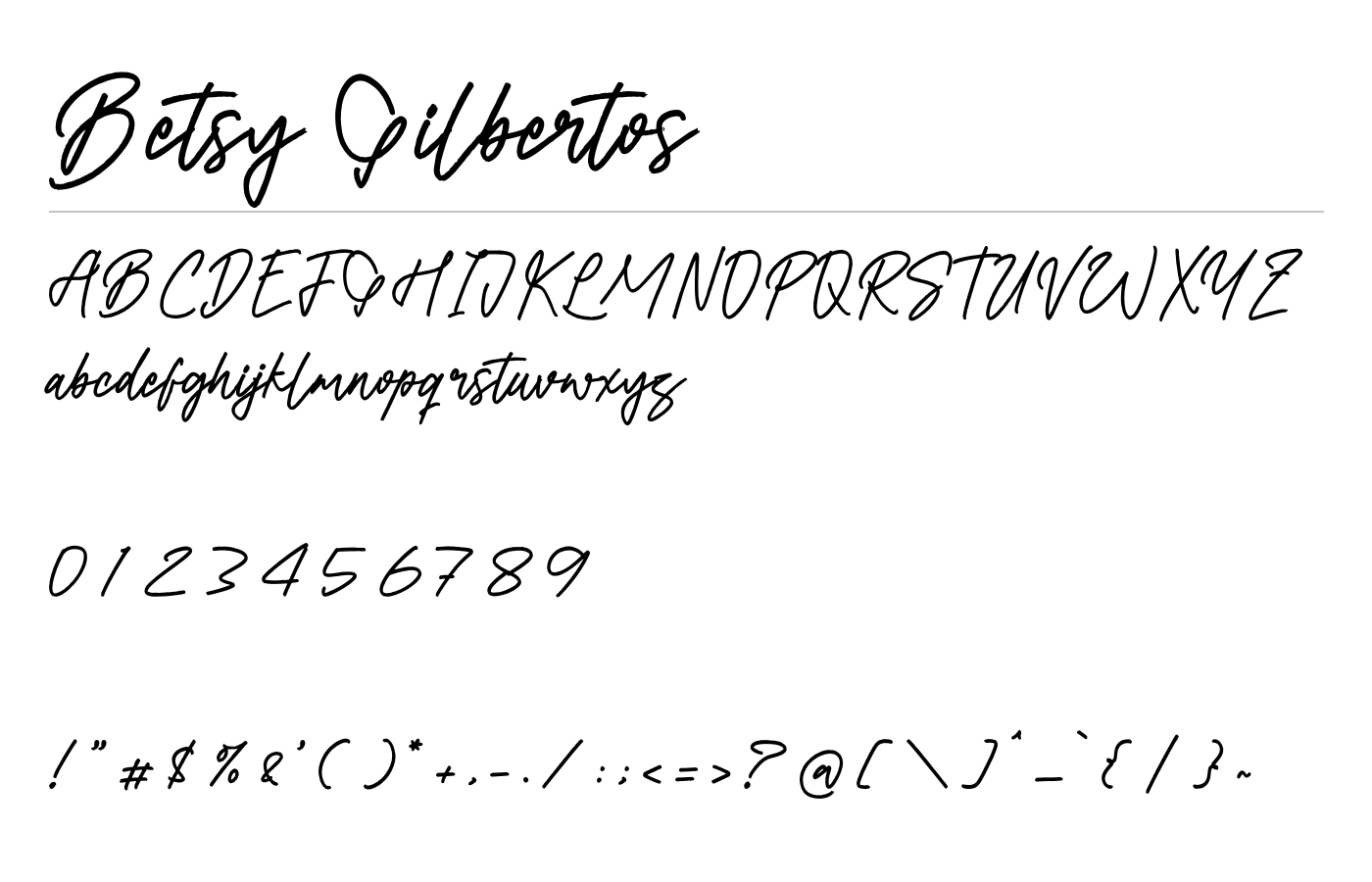
Betsy Gilbertos is a casual and stylish handwritten script font characterized by its flowing, slightly uneven strokes that give it a natural, personal touch. Its slim weight and airy spacing make it ideal for adding a friendly, modern elegance to branding, invitations, and editorial headlines that require an approachable yet sophisticated feel. Perfect for projects that want to convey warmth and authenticity, this font works well in creative and lifestyle contexts where personality shines through.
Betsy Gilbertos Font
About Betsy Gilbertos Font